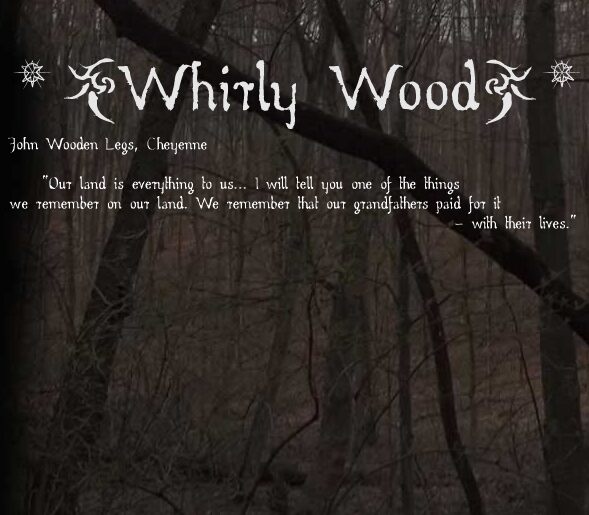
Whirly Wood by Roland Huse is a free distressed old-school display font with the uneven bite of hand-cut lettering. Its tall, narrow letters shift sharply between broad strokes and fine pointed joins. Ragged edges and exaggerated hooks give the line a restless, theatrical silhouette.
Horror posters are its clearest home, especially with folklore or handmade stage scenery. It also suits haunted-attraction signage, dark-fantasy book covers, and music merchandise, but poster titles best exploit its long spikes.
Whirly Wood is my first hand-drawn font. The name comes from J. D. Salinger’s novel A Perfect Day for a Bananafish.